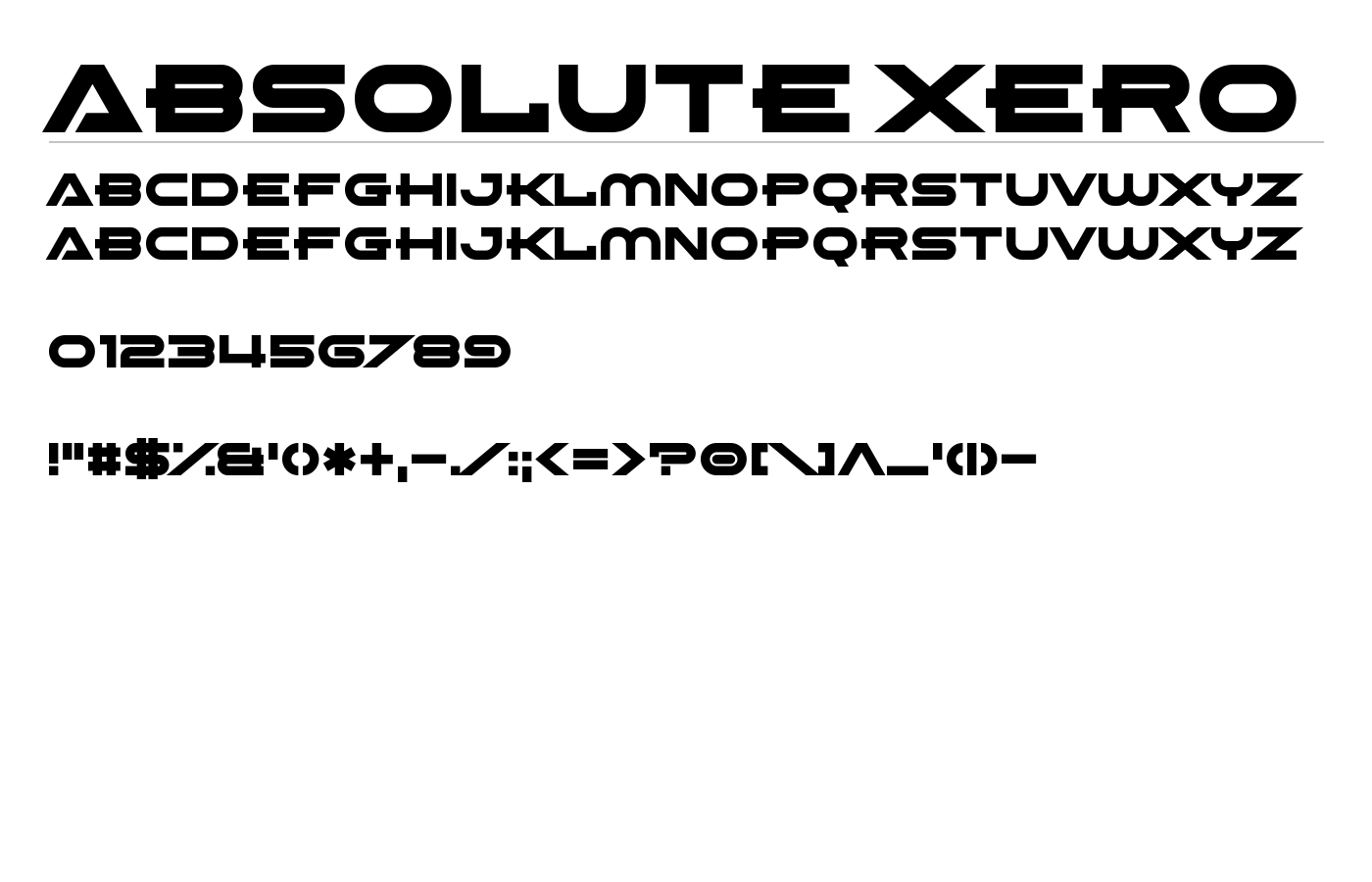
Absolute Xero is a bold, futuristic sans serif font with a solid, geometric structure and medium width. Its sharp angles and unique cutouts give it a high-tech, modern feel, making it ideal for technology-driven brands, sci-fi themes, or dynamic headlines that need to stand out. This font works best in display settings like logos, posters, and packaging where its distinctive style can really make a strong visual impact.
Absolute Xero Font
About Absolute Xero Font